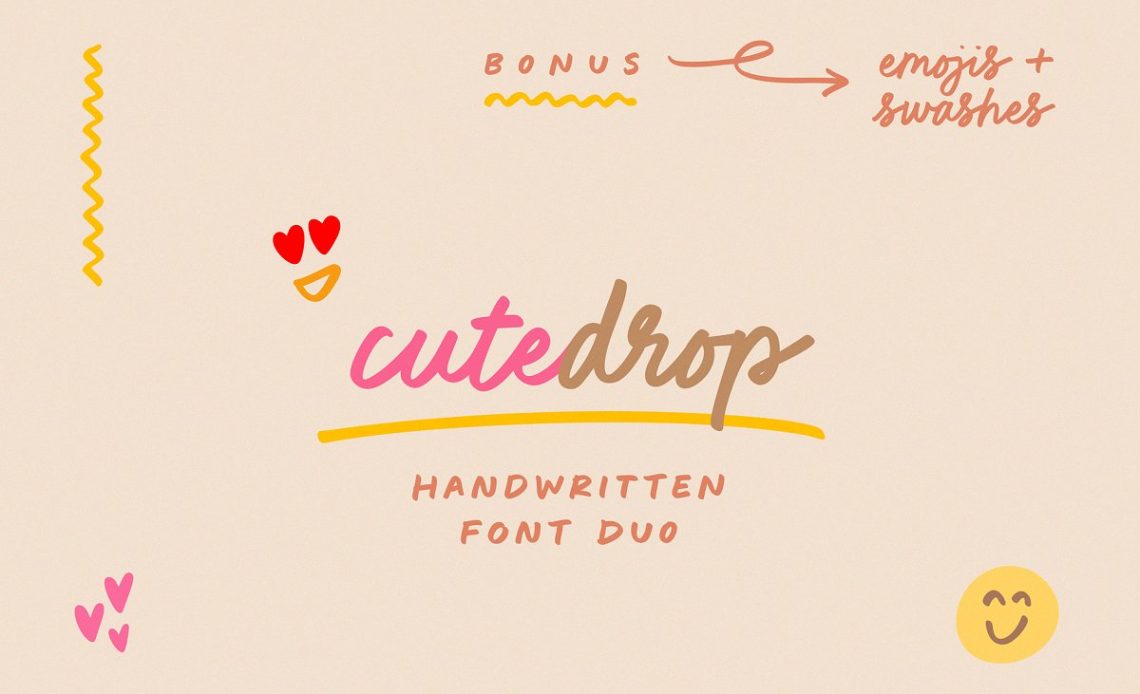
Looking for a font collection that is both cute and versatile? Look no further than CuteDrop, the latest handwriting font family created by Minna Kaario. This delightful duo features a matching script and all caps font, both of which are authentically handwritten with the same marker pen for a consistent look. But that's not all – CuteDrop also comes with a bonus font featuring emojis, hearts, underlines, arrows, circles, and scribbles – all drawn with the same pen to perfectly match the writing.
With these fonts, you can easily and quickly create designs with a full handmade look, without the headache of trying to make elements from different sources fit together. All the fonts are designed to look like they came from the same pen – because they literally did! Whether you use them together or apart, or mix and match, the result is sure to be super fun to play with.
Your download of CuteDrop will contain the following fonts in OTF format: CuteDrop Script – a pretty handwritten script including a set of lowercase alternates; CuteDrop Caps – a matching all caps font with two sets of uppercase letters; and CuteDrop Symbols – a dingbats font of 65 hand-drawn elements. These fonts will work in any program, but please note that the lowercase alternates of the script font can only be accessed on software that supports OpenType features.